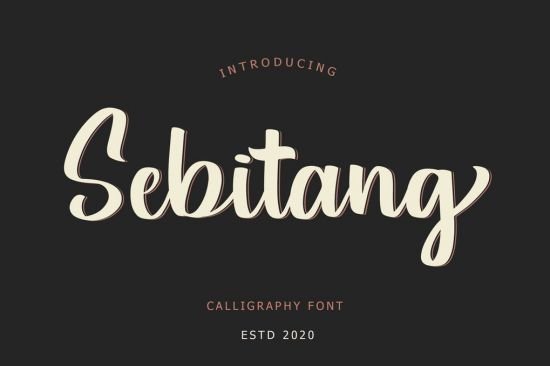
Sebitang is a beautiful calligraphy font with vintage style. It’s perfect for adding a graceful feel to any design project.
Sebitang is perfect for branding projects, logo, wedding designs, social media posts, advertisements, product packaging, product designs, label, photography, watermark, invitation, stationery and any projects.